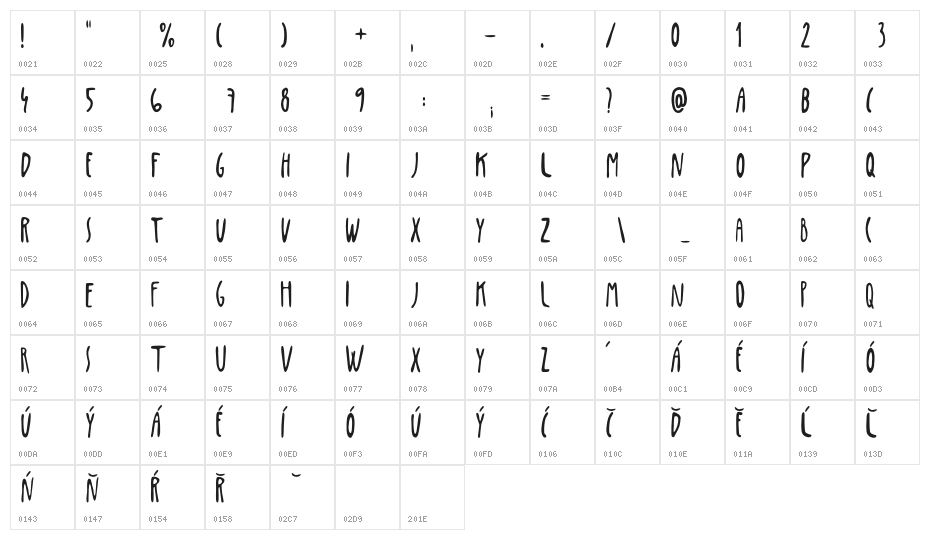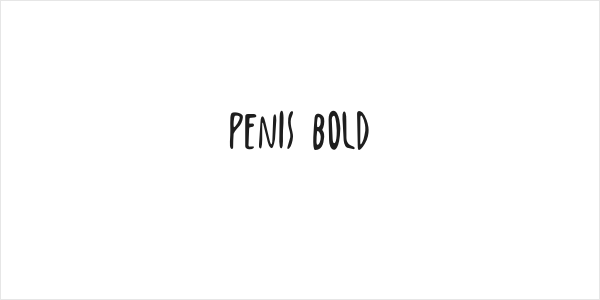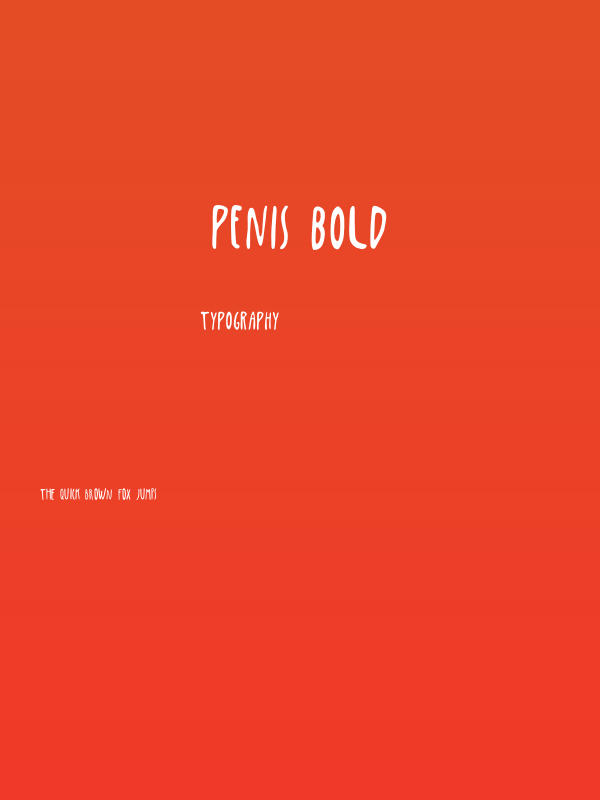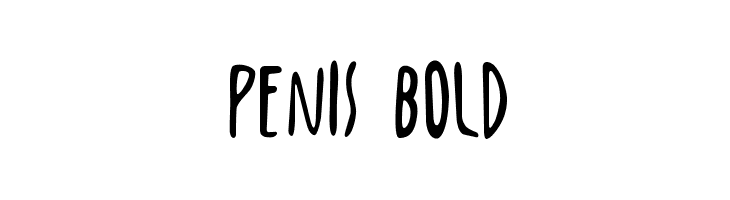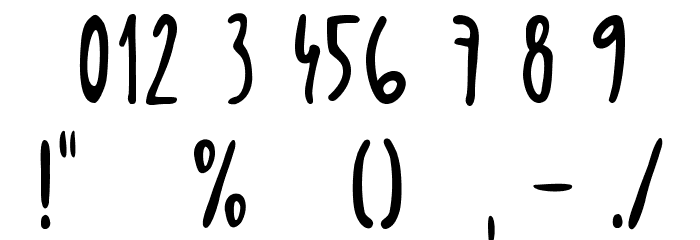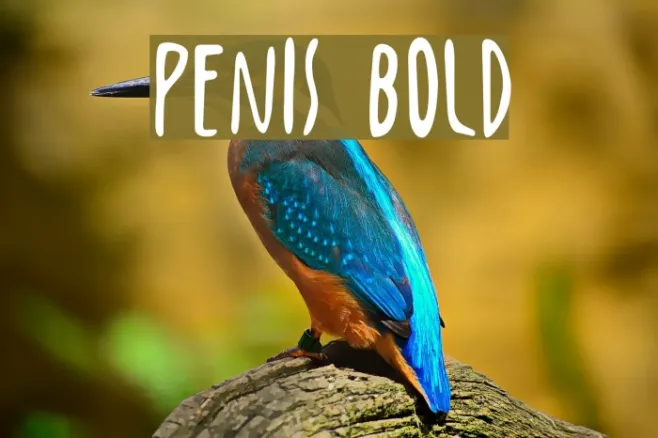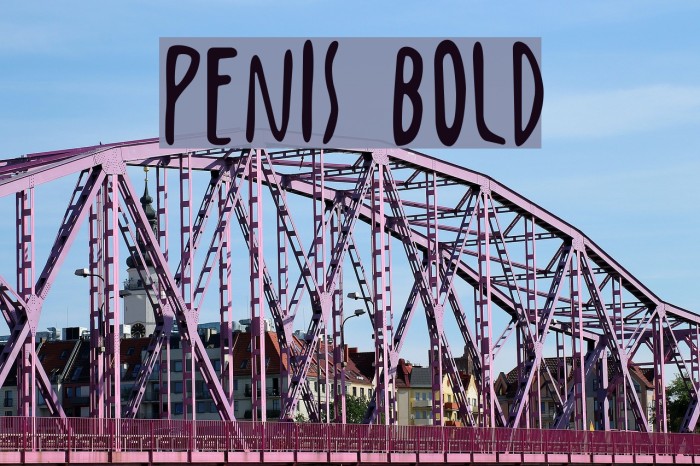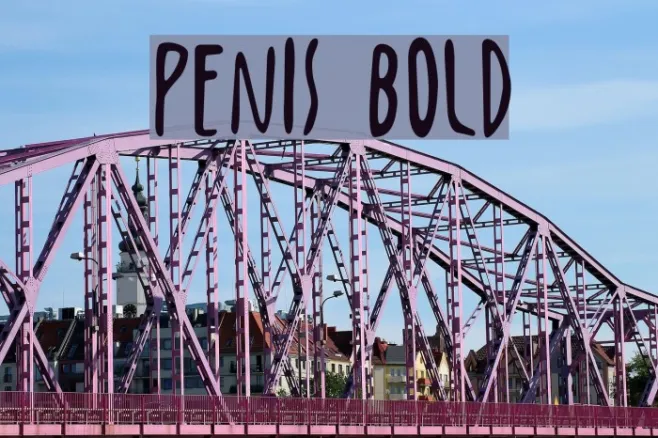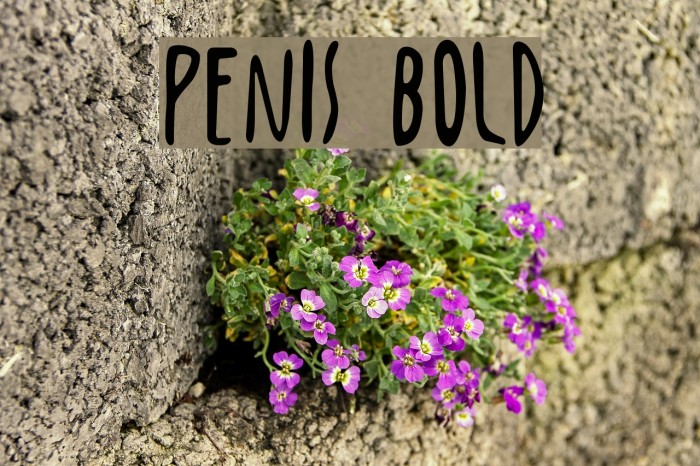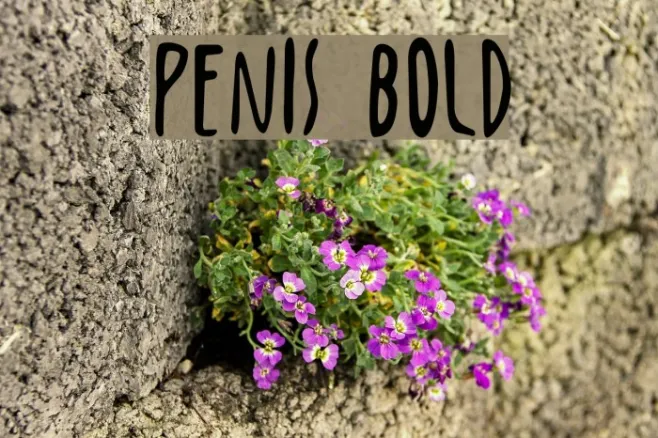
Penis Bold Font
Penis Bold Description
A playful, hand-drawn sans-serif font with tall, narrow letterforms and irregular, organic strokes. The characters have a casual, whimsical appearance, with uneven baselines and varying stroke thicknesses, giving it a lively and informal feel.
| Overall Style | Playful, Casual, Hand-drawn |
| Use Case | Headlines, Posters, Informal Branding |
| Proposed Projects | Children’s books, posters, greeting cards, informal branding, creative projects. |